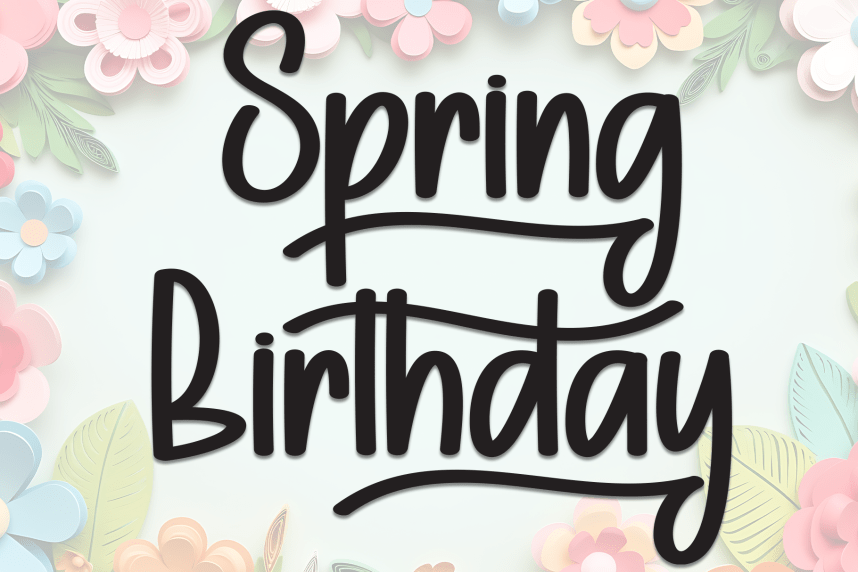
Blackstone Display Font
Blackstone Display Font is a playful handwritten font with a charming serif style. Its fun and bouncy letters add a friendly touch to any text, making it great for casual and creative designs!